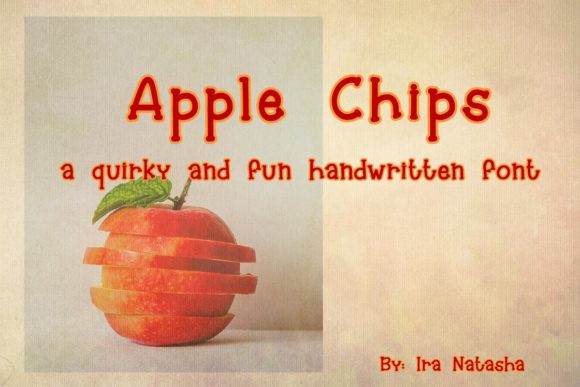
Apple Chips Font
Prepare yourself to be mesmerized by Apple Chips Font – a creation of Ira Natasha that will take you on a journey through the world of handwritten beauty. Each letter, meticulously crafted with care, exudes a charm like no other, capturing the essence of heartfelt messages and personal touches.
With its captivating dance of strokes, Apple Chips Font gracefully embodies the spirit of handwritten notes, adding a touch of warmth and authenticity to your digital creations. It's the perfect companion for those seeking to express their individuality, whether designing logos that speak volumes, heartfelt social media posts that resonate, or stunning invitations that leave a lasting impression.
Step into the realm of endless possibilities with Apple Chips Font – let your imagination run free as you craft designs that ignite emotions and create connections. From elegant wedding invitations that whisper sweet promises to vibrant branding that captivates audiences, this font is your magic wand, transforming ordinary words into enchanting tales.